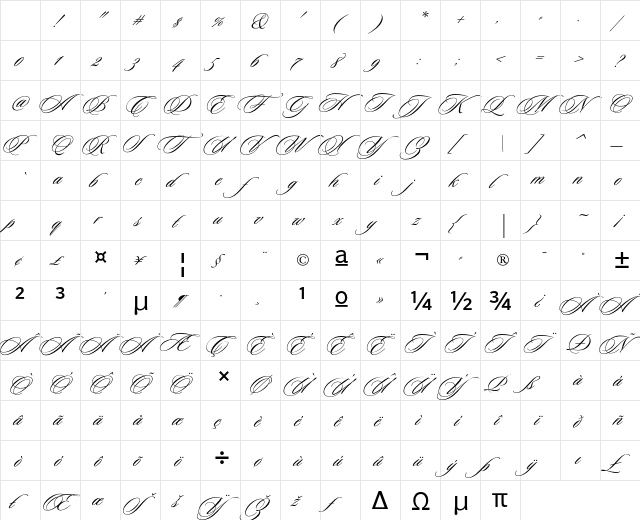
MP FBSloop flows with the natural rhythm of handwritten lettering, making it ideal for designs that call for warmth and personal expression.
Font Pairing: Combine MP FBSloop with a simple geometric sans for maximum contrast - the tension between flowing curves and clean structure is a classic typographic pairing.
Pro Tip: Use MP FBSloop for short runs of text - names, titles, or taglines. Extended body copy in script faces tires the eye quickly.